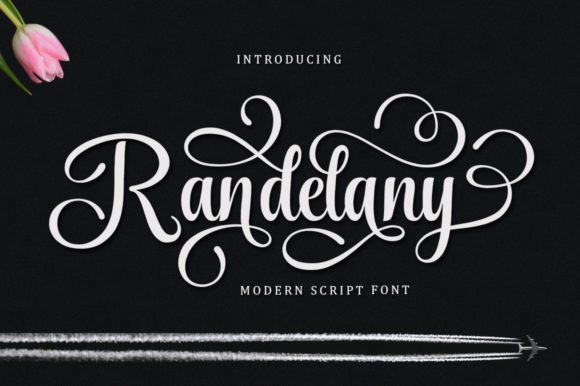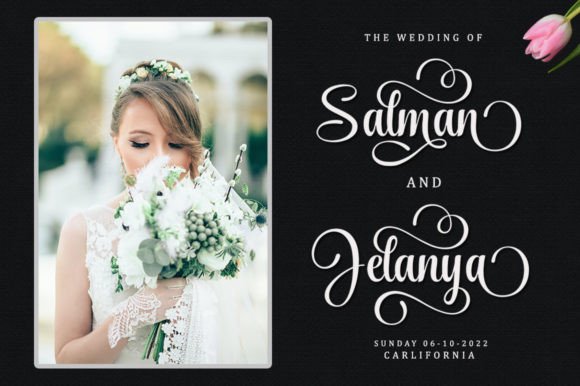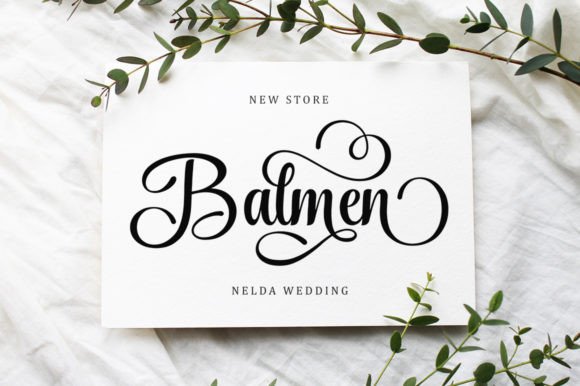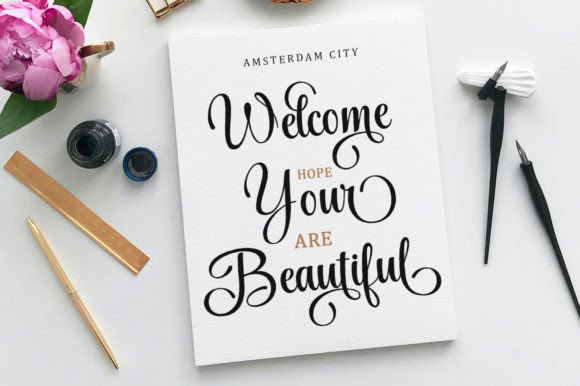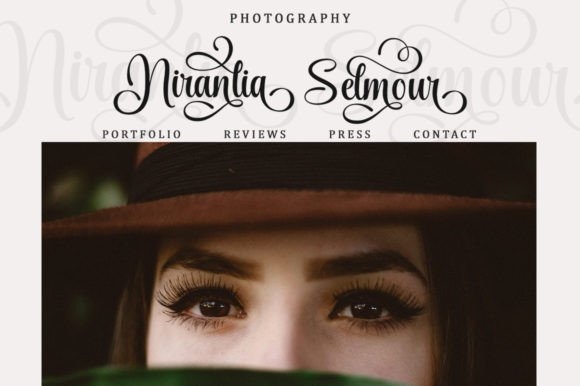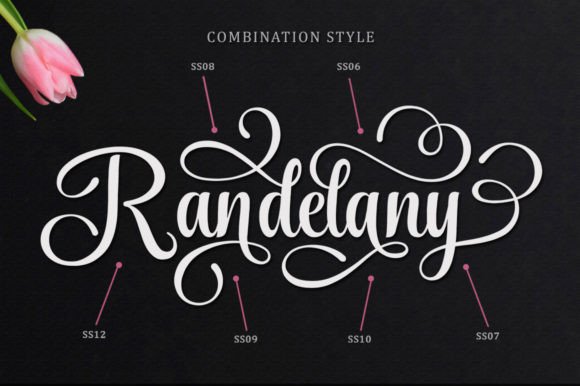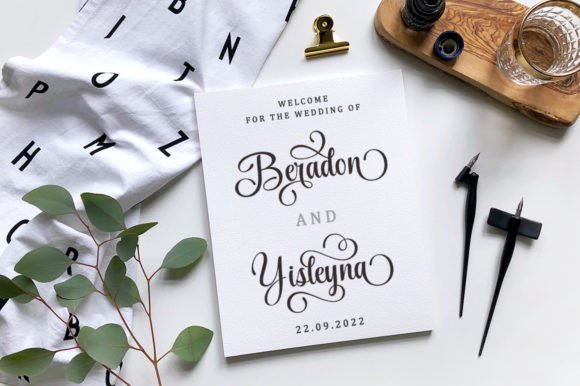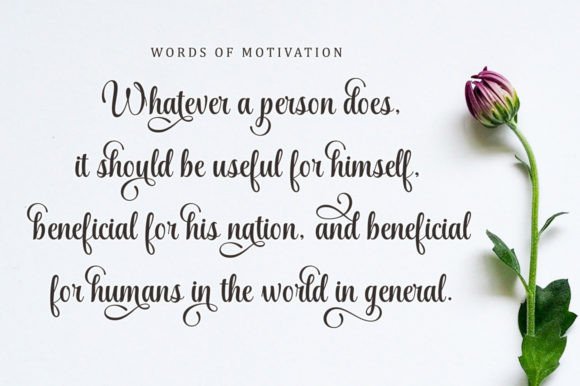
Randelany Font
Randelany is a font that embodies modern elegance and versatility in the world of typography. Its carefully crafted design strikes a harmonious balance, offering a visual appeal that is neither too thin nor too thick. The thoughtful variations in its strokes contribute to a dynamic and engaging aesthetic, making it a font that stands out in the realm of design.
The beauty of Randelany lies in its adaptability to a wide range of projects and design contexts. Whether you are working on a sleek logo, a refined invitation, or a sophisticated branding project, this font can seamlessly integrate into diverse themes and industries. Its versatility is a key asset, allowing designers to explore creative possibilities and bring their visions to life.
The modernity of Randelany is evident in its clean lines and contemporary aesthetics. It is a font that keeps pace with current design trends, making it a relevant choice for projects that demand a fresh and up-to-date look. The elegant script design adds a touch of sophistication, making Randelany suitable for everything from digital interfaces to printed materials.
In terms of functionality, Randelany offers a balance of readability and style. Its legibility ensures that your message is communicated effectively, while the stylish script adds a layer of visual interest. This combination makes it a practical choice for a variety of applications, from web design to editorial layouts.
The timeless quality of Randelany makes it a font that transcends fleeting trends. Its enduring elegance ensures that your designs maintain a classic appeal, standing the test of time. Whether used in a standalone fashion or paired with other typefaces, Randelany has the ability to enhance the overall aesthetic of any creative project.
As a modern and elegant script font, Randelany is not just a set of characters; it’s a design tool that empowers creators to elevate their projects. Its balance, versatility, and timeless appeal make it a valuable asset for designers seeking a font that can seamlessly integrate into a diverse range of visual communications.
In summary, Randelany is a font that embodies the best of modern elegance—a versatile and sophisticated typeface that adds a touch of refinement to your creative endeavors.